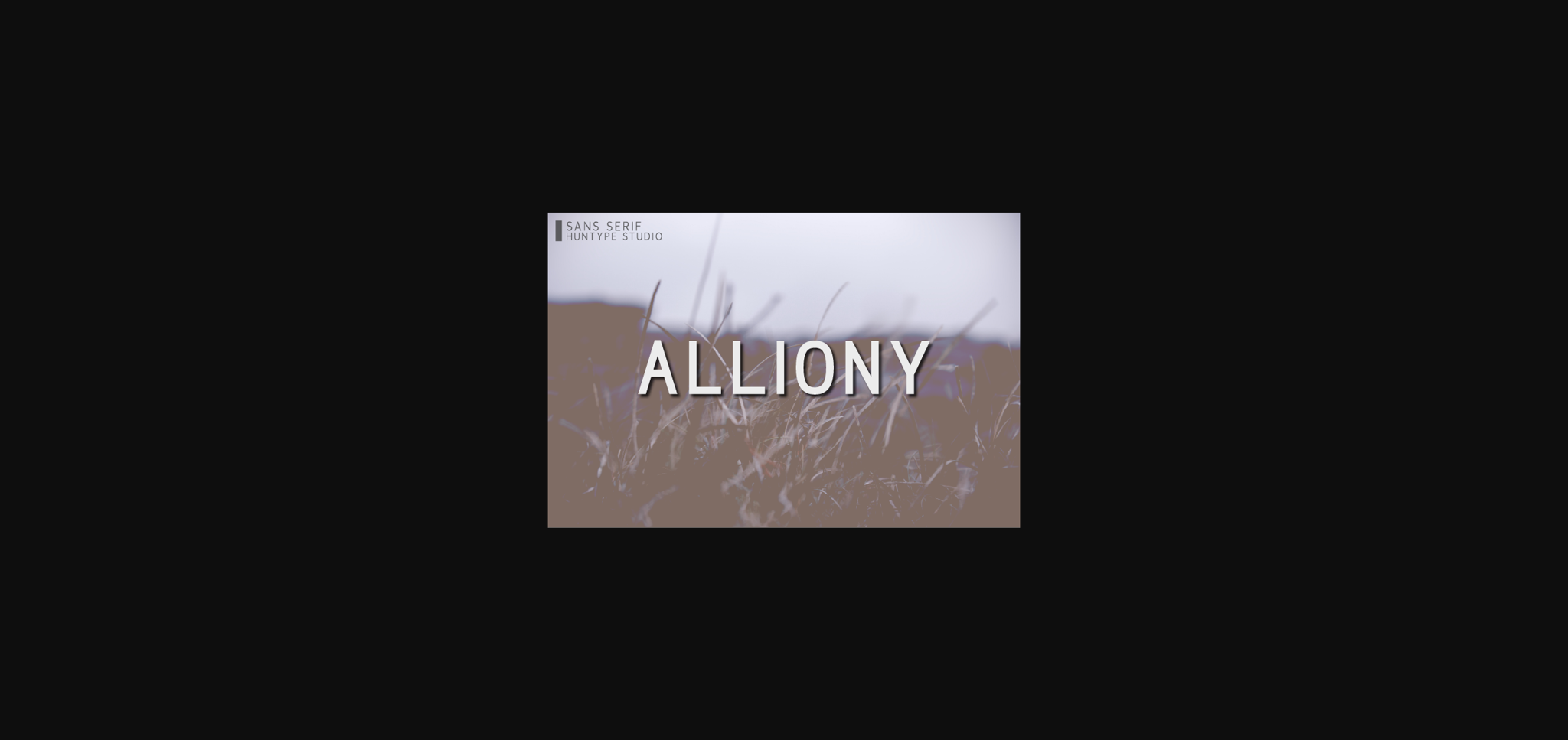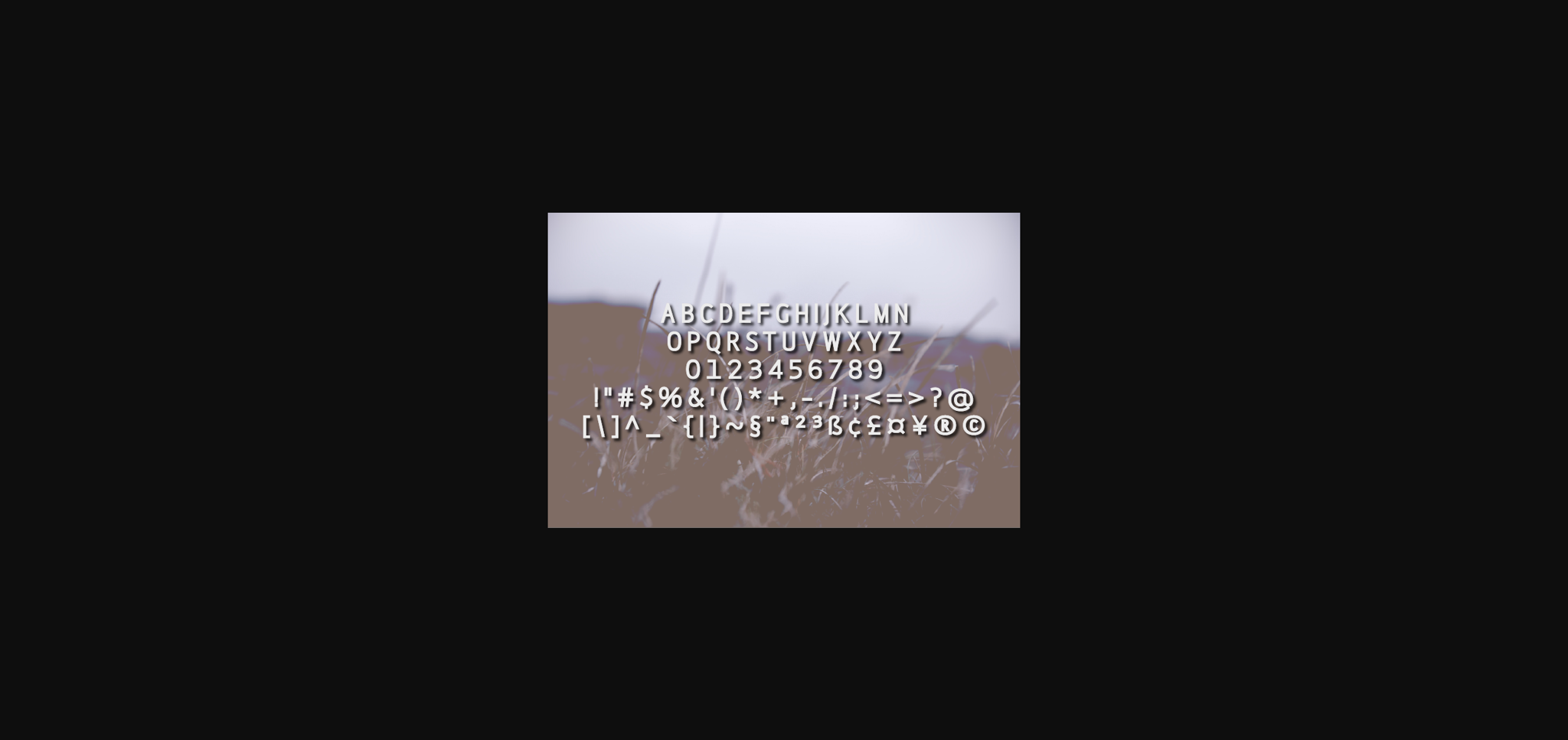
HomeSans Serif FontsAlliony Font Sans Serif Fonts Alliony Font FacebookXPinterestWhatsApp 1 of 4 ... Alliony Font Poster 2... Alliony Font Poster 3... Alliony Font Poster 4... About Alliony Font Alliony is a simple and timeless sans serif font with an undeniably clean feel. With its neat and beautiful arrangement of letters, this typeface will look outstanding in both formal and non-formal designs. DOWNLOAD NOW People also explored Hello Sarrah Buster Brush Signature Font Firecrackers Font Hongkong Font Bagiqu Font Unicorn Font Winter Dress Font Journey Font Sampling Font 319 0 TagsAllionyAlliony Font Previous articleHanzone FontNext articleDolvphy Font LEAVE A REPLY Cancel reply Comment: Please enter your comment! Name:* Please enter your name here Email:* You have entered an incorrect email address! Please enter your email address here Website: Save my name, email, and website in this browser for the next time I comment. Personal Use Free Alista Font Personal Use Free Read more about this font Adelfa Personal Use Free Read more about this font Breather Personal Use Free Read more about this font Oaklevin Personal Use Free Read more about this font BLOG How to Install and Use Fonts on Windows, macOS, and Web Projects How to Install and Use Fonts on Windows, macOS, and Web Projects Fonts are a crucial part of design and branding. Whether you’re designing a... Top 10 Handwritten Fonts That Elevate Your Designs Using Fonts in Digital Marketing: Tips to Strengthen Your Brand Identity Free vs Paid Fonts: Why Investing in Premium Fonts Is Worth It